Athletic Display Fonts for Sports Branding and Apparel Design
Athletic branding needs type that reads as energy and speed, not just letters. This collection brings together 28 sports-inspired display fonts, from distressed sport lettering to clean varsity styles and vintage-inspired sports typefaces, each built for team apparel, championship posters, and sports merchandise design.
Some of these work best oversized across a chest print, others hold their shape down to a small sleeve logo or a sponsor line. Whether you’re building a jersey design, a team logo, or a full athletic brand kit, there’s a typeface here built for the job.
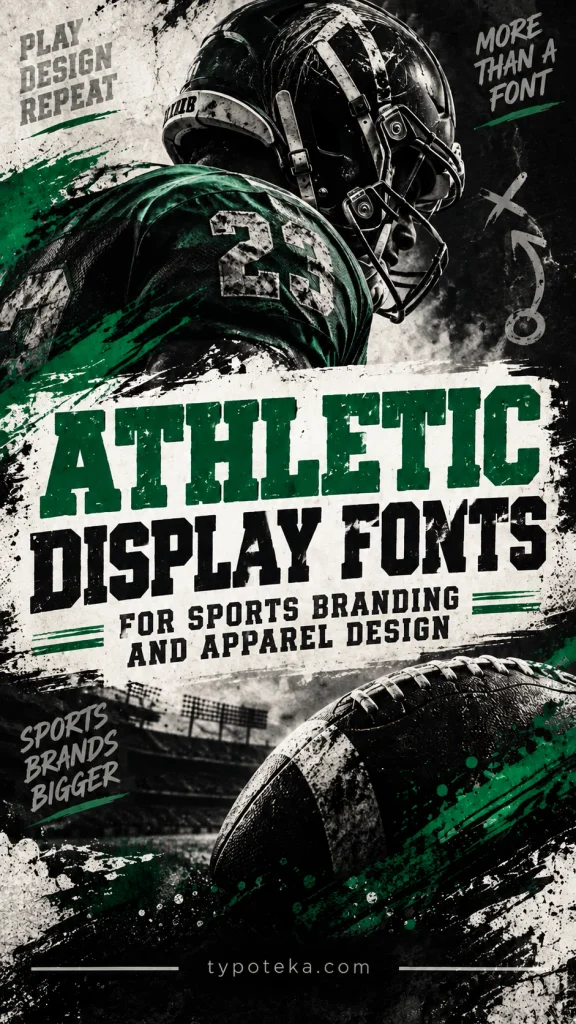
1. Sport Distressed Font
Sport Distressed is a sports-inspired display font perfectly suited to athletic designs, team branding, apparel, logos, posters, and other bold creative projects.
The distressed texture adds authentic, weathered visual character to sports designs. Perfect for grunge sports aesthetics, vintage-inspired athletic materials, distressed merchandise graphics, authentic street sports branding, and edgy athletic design applications.
View This Font →2. Basket Sport Italic Font
Basket Sport Italic is a sports-inspired display font perfectly suited to athletic designs, team branding, apparel, logos, posters, and other bold creative projects.
The italic style adds dynamic energy and visual movement to basketball-themed graphics. Ideal for basketball team branding, sports action graphics, dynamic athletic promotions, energetic sports communications, and contemporary basketball design projects.
View This Font →3. Jersey Font
Jersey is a sports-inspired display font perfectly suited to athletic designs, team branding, apparel, logos, posters, and other bold creative projects.
With classic jersey aesthetics, this typeface works beautifully for team merchandise, sports uniforms, athletic apparel branding, professional sports materials, and authentic jersey-style designs.
View This Font →4. Aerosta Font
Aerosta is a distinctive display font designed for creative typography, branding, headlines, apparel, posters, and other design projects.
With modern, aerodynamic letterforms, Aerosta conveys speed, efficiency, and contemporary design. Perfect for transportation brands, aviation industry materials, technology companies, progressive design systems, and modern corporate branding.
View This Font →5. Jersey Baseball Font
Baseball is a sports-inspired display font perfectly suited to athletic designs, team branding, apparel, logos, posters, and other bold creative projects. Specifically tailored for baseball-themed graphics and sports materials, this font captures the classic energy of America’s favorite pastime.
Ideal for creating baseball team merchandise, league graphics, sports event promotions, baseball club branding, and athletic merchandise. Works excellently for vintage-inspired baseball designs and modern sports branding that requires strong impact and authentic sports aesthetic.
View This Font →6. Revocent Font
Revocent is a distinctive display font designed for creative typography, branding, headlines, apparel, posters, and other design projects.
With strong contemporary character, Revocent works across modern branding systems, innovative corporate identity, progressive design applications, and forward-thinking visual communications.
View This Font →7. Clashlab Font
Clashlab is a distinctive display font designed for creative typography, branding, headlines, apparel, posters, and other design projects.
The experimental aesthetic appeals to creative studios, design agencies, innovative brands, and avant-garde design movements. Perfect for creative industry branding, experimental design projects, art-focused materials, and boundary-pushing visual communication.
View This Font →8. Clashix Font
Clashix is a distinctive display font designed for creative typography, branding, headlines, apparel, posters, and other design projects.
With unique letterform treatment and distinctive character personality, Clashix stands out in competitive branding landscapes. Ideal for distinctive brand positioning, memorable design systems, specialty applications, and visually distinctive communications.
View This Font →9. Baseball Font
Baseball is a sports-inspired display font perfectly suited to athletic designs, team branding, apparel, logos, posters, and other bold creative projects. Specifically tailored for baseball-themed graphics and sports materials, this font captures the classic energy of America’s favorite pastime.
Ideal for creating baseball team merchandise, league graphics, sports event promotions, baseball club branding, and athletic merchandise. Works excellently for vintage-inspired baseball designs and modern sports branding that requires strong impact and authentic sports aesthetic.
View This Font →10. Neverdies Font
Neverdies is a distinctive display font designed for creative typography, branding, headlines, apparel, posters, and other design projects.
This collection leans toward distressed and varsity sport styles on purpose — great for gritty team merchandise and modern championship graphics. If you’re after classic jersey and vintage sports lettering instead, our Sports Fonts for Team Branding, Jerseys & Athletic Designs collection covers that side of the same athletic theme.